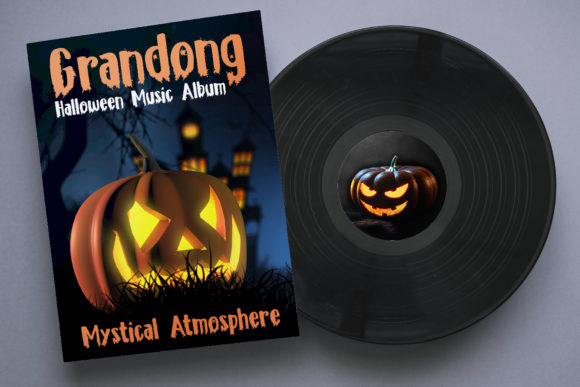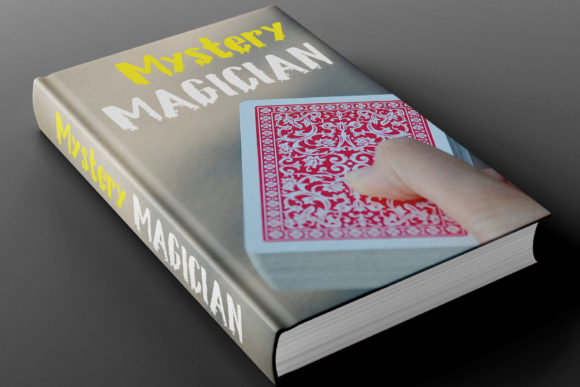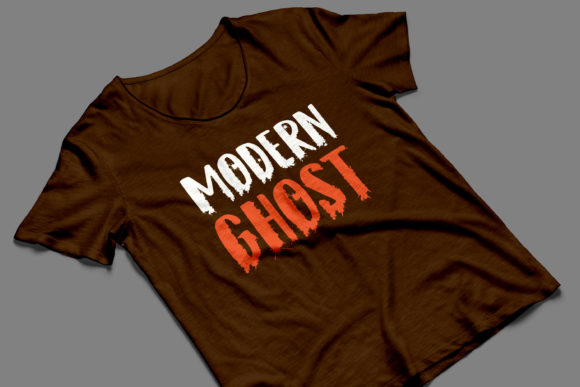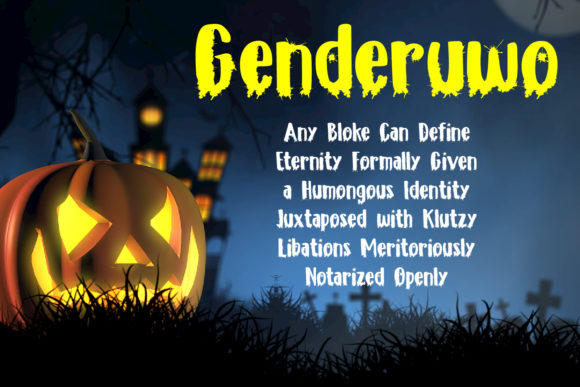
Unleash the Spooky Spirit: Exploring the Demits Font
In the realm of typography, few fonts capture the essence of Halloween as perfectly as Demits. Inspired by mystery, myths, ghost stories, and horror, Demits is a timeless Halloween-themed typeface designed to add a spooky feel to any design idea. Whether you’re a designer, crafter, or simply a fan of the eerie and unknown, Demits is sure to cast a spell on your creative projects.
The Origins of Demits
The Demits font draws its inspiration from the darker corners of folklore and popular culture. Its creator aimed to encapsulate the mystique and terror that come with the Halloween season, crafting a typeface that would be both haunting and beautiful. The result is a font that resonates with the spirit of the night, perfect for projects that demand an air of mystery and suspense.
Key Features of Demits Font
- Unique Glyphs: Demits boasts a range of unique glyphs that are reminiscent of old, mysterious manuscripts and creepy tales told around a flickering campfire. Each character is designed to contribute to the overall spooky atmosphere of your designs.
- Versatility: While Demits shines in Halloween-themed projects, its versatility means it can also be used in a variety of other contexts where a touch of the macabre or mysterious is desired. From horror movie posters to haunted house invitations, Demits can add depth and character to your work.
- Ease of Use: Despite its complex and eerie appearance, Demits is surprisingly easy to use. The font is well-suited for both digital and print applications, making it a valuable addition to any designer’s toolkit.
Design Applications of Demits
Demits’ adaptability makes it an excellent choice for a wide range of design projects. Here are a few ideas to get you started:
- Halloween-Themed Designs: The most obvious application of Demits is in Halloween-themed designs. Use it for party invitations, decorations, and themed merchandise to instantly evoke the spirit of the season.
- Horror and Mystery Content: For creators of horror stories, comics, or films, Demits can add an authentic touch to your titles, taglines, and promotional materials.
- Event Branding: Whether it’s a haunted house, a spooky escape room, or a themed cafe, Demits can help create a cohesive and immersive brand identity that promises an experience like no other.
- DIY Crafts and Projects: Crafters can also benefit from using Demits in their projects, such as handmade cards, scrapbooking, and other paper crafts. The font can add a personalized and unique touch to your creations.
Tips for Using Demits Effectively
To make the most of Demits in your designs, consider the following tips:
- Pair with Complementary Fonts: While Demits can be stunning on its own, pairing it with simpler, sans-serif fonts can create a compelling contrast that enhances your design.
- Experiment with Colors: Stick to a dark color palette to maintain the spooky vibe, but don’t be afraid to experiment with rich, vibrant colors to add depth and interest to your designs.
- Play with Textures and Effects: Adding textures or effects like shadows, glows, or distressed looks can further enhance the eerie feel of your text.
Demits is more than just a font; it’s a creative tool that allows designers and crafters to tap into the mystique and allure of the unknown. With its unique glyphs, versatility, and ease of use, Demits is poised to become a go-to typeface for anyone looking to add a spooky or mysterious touch to their projects. So, unleash your creativity, and let Demits guide you into the heart of darkness, where your most hauntingly beautiful designs await.